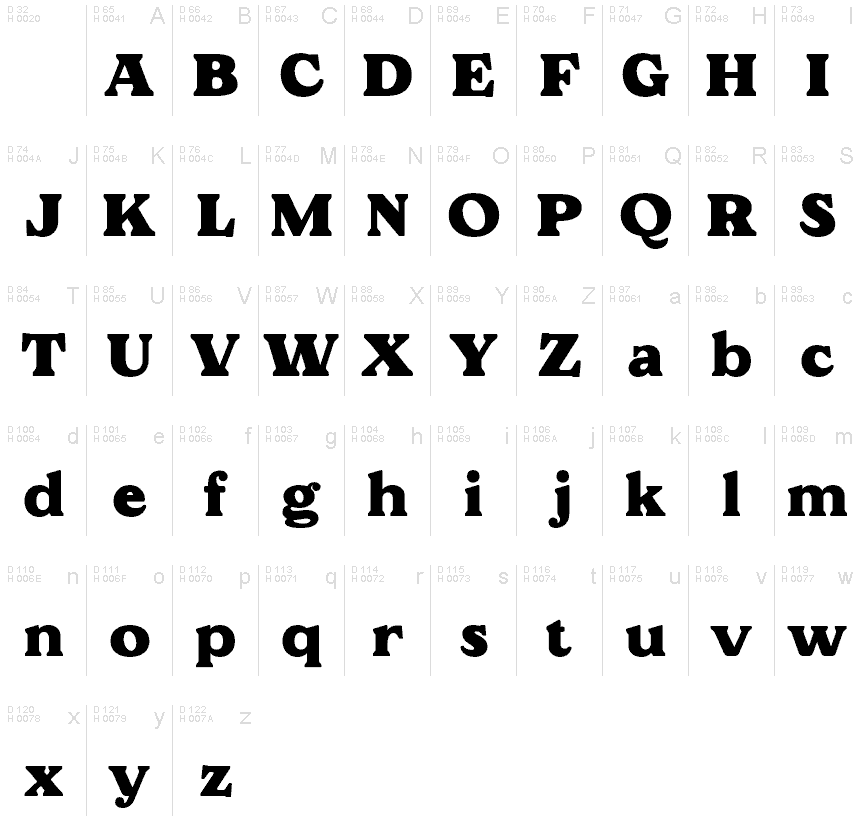
CS Calika Regular Demo
CS Calika font is a robust serif type by Craft Supply Co. with a potent presence built into its sturdy characters. The versatile font is authoritative but does have warmth attached to it with clean serifs and gentle corners. CS Calika manages to retain a traditional appearance while still looking timeless, which adds layers of safe classic appeal few fonts present nowadays.